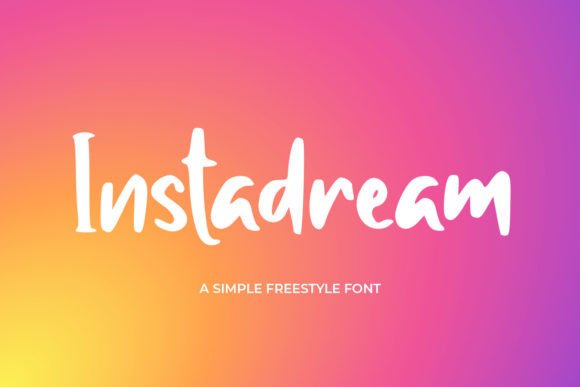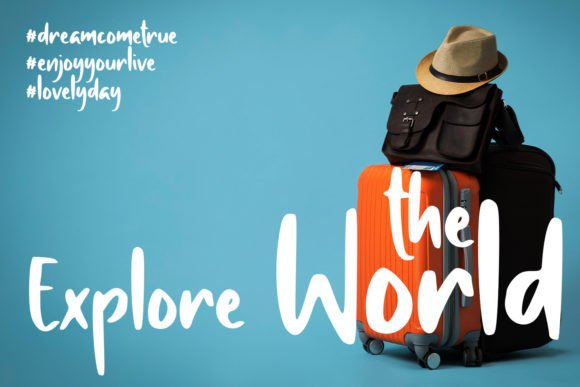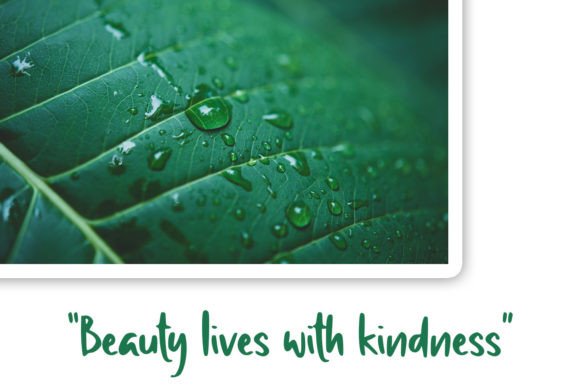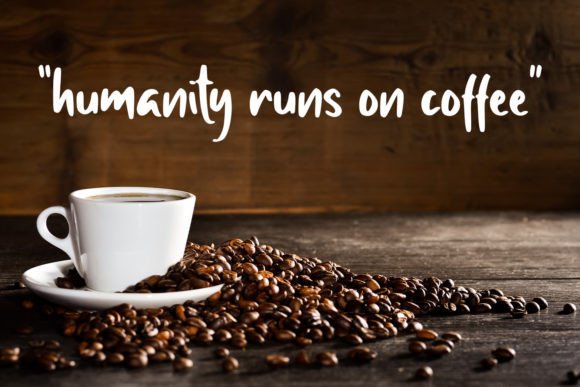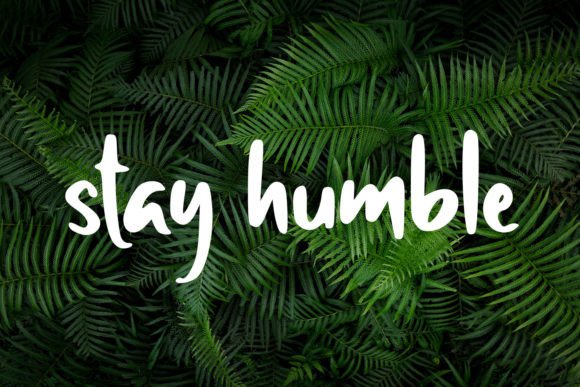
Instadream Font
About Instadream Font
“Instradream” is a versatile freestyle font that brings a simple and artistic touch to your creative projects. This font is an excellent choice for a variety of design applications, including quotes, mugs, tote bag designs, cards, banners, social media content, and any craft project that benefits from a free-spirited and unstructured vibe.
The charm of “Instradream” lies in its effortless and spontaneous style. Each character carries an air of freedom and creativity, making it suitable for projects where you want to convey a sense of personal expression and artistic flair. Imagine using “Instradream” for a motivational quote, where the freestyle font adds an element of authenticity and individuality to the message.
For mugs, tote bags, and cards, this font imparts a handmade and artisanal feel to your designs, creating a unique and personal connection with your audience. Picture a craft project where “Instradream” is used to add a touch of creativity and artistic spontaneity.
Furthermore, “Instradream” offers versatility and readability, ensuring that your text remains clear and legible, even in freeform or artistic designs. This quality is essential when conveying meaningful sentiments or important information in your projects.
In summary, “Instradream” is more than just a font; it’s a creative tool that infuses a sense of artistic freedom and authenticity into your work. Its freestyle feel adds a personal and unstructured touch to a wide range of design applications, enhancing the creative impact of your projects. With “Instradream” in your font collection, you have a versatile companion for infusing your creative endeavors with a touch of artistic flair, leaving a lasting impression on your audience.